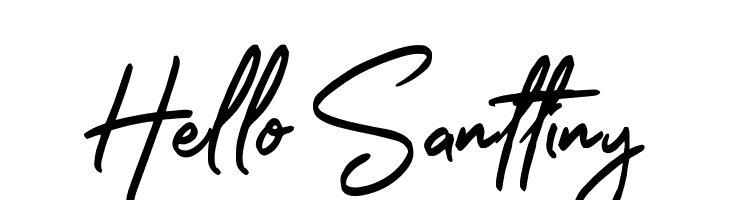
An elegant, flowing script font with a sophisticated and graceful appearance.
A playful, hand-drawn script font with smooth curves and interconnected letters.
A playful, bold, and hand-drawn style font with a whimsical touch.
An elegant script font with flowing curves and sophisticated details.
An elegant script font with flowing, connected strokes and subtle flourishes.
A bold, playful handwritten font with smooth, rounded letters.
A lively, expressive handwritten font with flowing, cursive letters.
A bold, brush-style font with dynamic and lively strokes.
A playful, bold font with rounded, thick strokes and a whimsical style.
A playful, handwritten font with tall, narrow letters and a slight slant.